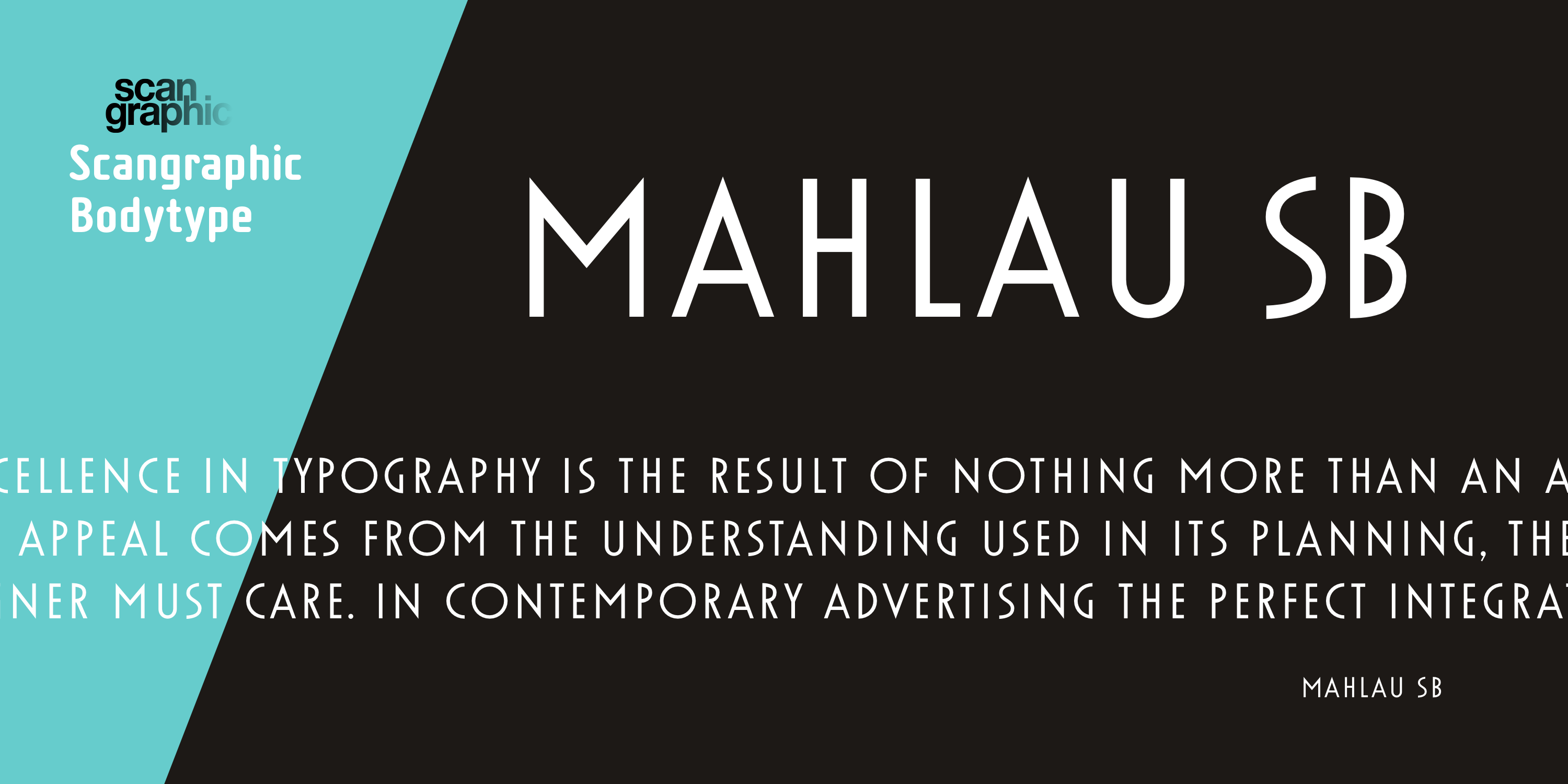
Mahlau SB Font is perfect for contemporary editorial layouts, modern magazine designs, sophisticated branding projects, minimalist corporate identity, tech startup presentations, architectural portfolios, art gallery exhibitions, premium product catalogs, and sleek digital interfaces. This versatile typeface brings refined modernism and professional clarity to both digital and print design applications.
Mahlau SB Font is exciting because it represents the perfect synthesis of contemporary design principles with exceptional functionality, making it an outstanding choice for designers who value clean aesthetics and optimal performance. Its precisely engineered letterforms and balanced proportions provide the perfect combination of visual impact and readability, ensuring your projects communicate professionalism and forward-thinking innovation that resonates with modern audiences.
The Mahlau SB Font family includes comprehensive weight variations from light to bold, featuring regular, medium, semibold, and bold styles with matching italic versions and extended character sets. Each weight maintains consistent design philosophy while offering flexibility for creating dynamic typography systems, allowing designers to build sophisticated visual hierarchies with seamless coordination and contemporary appeal.
Whether you're developing brand identities for innovative companies, editorial publications, or professional services, Mahlau SB Font Free Download delivers exceptional versatility and visual excellence that meets demanding design standards. This premium typeface offers designers the precision and sophistication needed to create contemporary designs that stand out in competitive markets. The font's refined character makes it perfect for both headline and body text applications, ensuring consistent readability and modern appeal. Download Mahlau SB Font today and elevate your creative projects with this remarkable contemporary typography solution that defines modern design excellence.